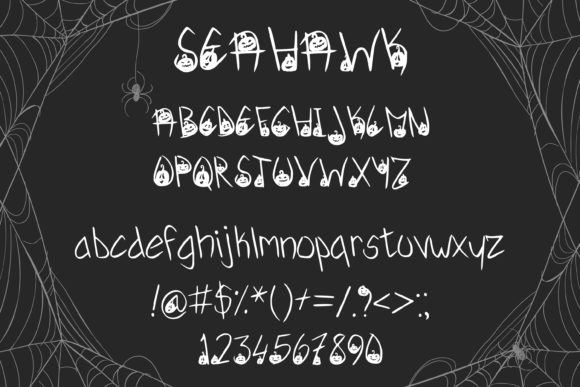
Introduction to Seahawk Font Font
Fonts play a crucial role in design, and the Seahawk Font font is a typeface that brings both character and versatility to any project. Whether you’re working on a branding project, a website, or a print design, the Seahawk Font font offers a unique style that can elevate your work.
Seahawk is an incredibly unique decorative font, featuring pumpkins as ornaments.
Distinct and quirky, this font will elevate each of your Halloween themed ideas .
Key Features of Seahawk Font Font
Why Choose Seahawk Font Font?
The Seahawk Font font is more than just a typeface – it’s a design tool that helps you communicate your message with style and clarity. Its unique character set and versatile design make it suitable for a wide range of applications, from elegant invitations to bold headlines.
With its carefully crafted letterforms and balanced proportions, the Seahawk Font font ensures readability and visual appeal across all mediums.
What makes Seahawk Font font special?
The Seahawk Font font stands out with its unique design, exceptional readability, and versatility across various design applications.